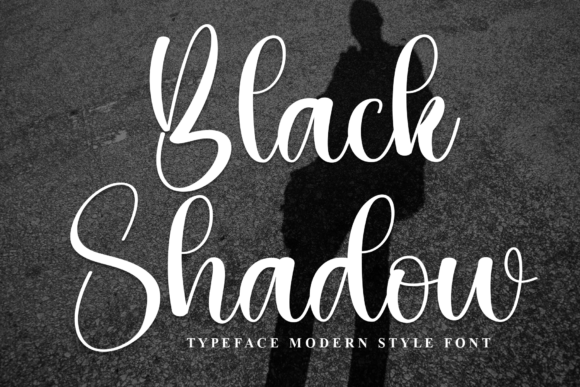
Introducing Black Shadow Font: Elevate Your Designs with Elegance and Drama
In the realm of typography, fonts play a pivotal role in shaping the visual identity of a design. Among the myriad of fonts available, the Black Shadow Font stands out as a bold and classy script font that has captured the attention of designers and artists alike. Its sweeping curves and elegant flow make it an ideal choice for creating captivating titles, packaging, or stylish invitations with a dramatic flair.
The Essence of Black Shadow Font
Black Shadow is more than just a font; it’s an experience. Its rich character and smooth transitions evoke a sense of luxury and sophistication, making it perfect for designs that demand attention and exude elegance. Whether you’re working on a high-end brand campaign, a wedding invitation, or a movie poster, Black Shadow Font brings a level of refinement and drama that’s hard to match.
Key Features of Black Shadow Font
- Bold and Classy Script Font: Black Shadow boasts a bold and classy appearance, making it suitable for designs that require a touch of sophistication.
- Sweeping Curves and Elegant Flow: The font’s sweeping curves and elegant flow contribute to its dramatic flair, setting it apart from more conventional fonts.
- Rich Character and Smooth Transitions: The rich character and smooth transitions in Black Shadow Font ensure that your designs are not only visually appealing but also highly readable.
Applications of Black Shadow Font
The versatility of Black Shadow Font makes it suitable for a wide range of applications. Here are a few ideas to get you started:
- Captivating Titles: Use Black Shadow Font to create eye-catching titles for movies, TV shows, or even blog posts.
- Packaging Design: Add a touch of elegance to your product packaging with Black Shadow Font.
- Stylish Invitations: Make your invitations stand out with the dramatic flair of Black Shadow Font.
- Branding and Advertising: Use Black Shadow Font to create bold and memorable brand campaigns.
Why Choose Black Shadow Font?
With so many fonts available, why should you choose Black Shadow Font for your next project? Here are a few compelling reasons:
- Unique and Memorable: Black Shadow Font’s distinctive style ensures that your designs will stand out from the crowd.
- Highly Versatile: The font’s versatility makes it suitable for a wide range of applications and design styles.
- Elegance and Drama: Black Shadow Font brings a level of elegance and drama that’s hard to match with other fonts.
Tips for Using Black Shadow Font Effectively
To get the most out of Black Shadow Font, here are a few tips to keep in mind:
- Use it Sparingly: Due to its bold and dramatic nature, it’s best to use Black Shadow Font sparingly to avoid overwhelming the viewer.
- Pair it with Simpler Fonts: Pair Black Shadow Font with simpler fonts to create visual contrast and make your designs more readable.
- Experiment with Colors and Textures: Don’t be afraid to experiment with different colors and textures to add depth and interest to your designs.
Black Shadow Font is a bold and classy script font that offers a unique blend of elegance and drama. Its sweeping curves, elegant flow, and rich character make it perfect for creating captivating titles, packaging, or stylish invitations. With its versatility and highly readable design, Black Shadow Font is an excellent choice for designers and artists looking to elevate their designs and make a lasting impression.
FAQs About Black Shadow Font
- What is Black Shadow Font?: Black Shadow Font is a bold and classy script font with sweeping curves and elegant flow.
- What makes Black Shadow Font unique?: Its rich character, smooth transitions, and dramatic flair make Black Shadow Font stand out from other fonts.
- What are some common applications of Black Shadow Font?: Black Shadow Font is suitable for creating captivating titles, packaging, stylish invitations, and brand campaigns.